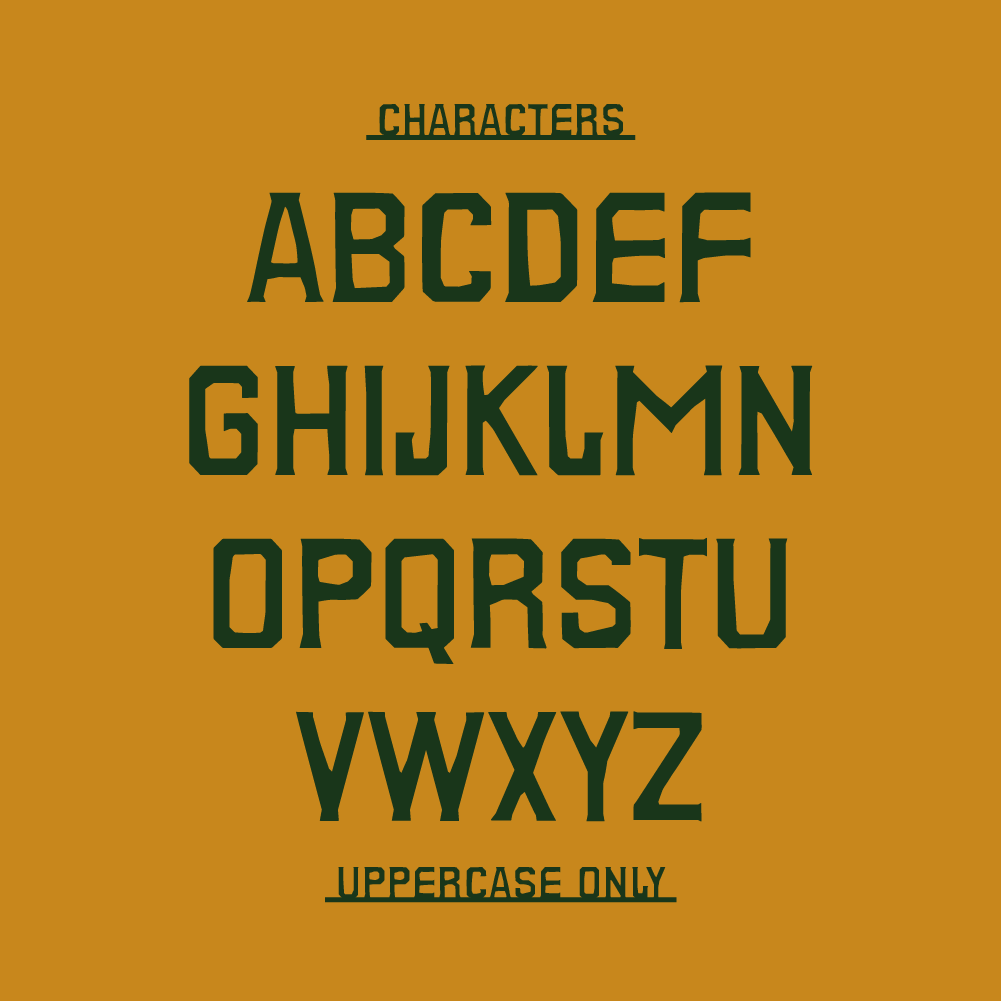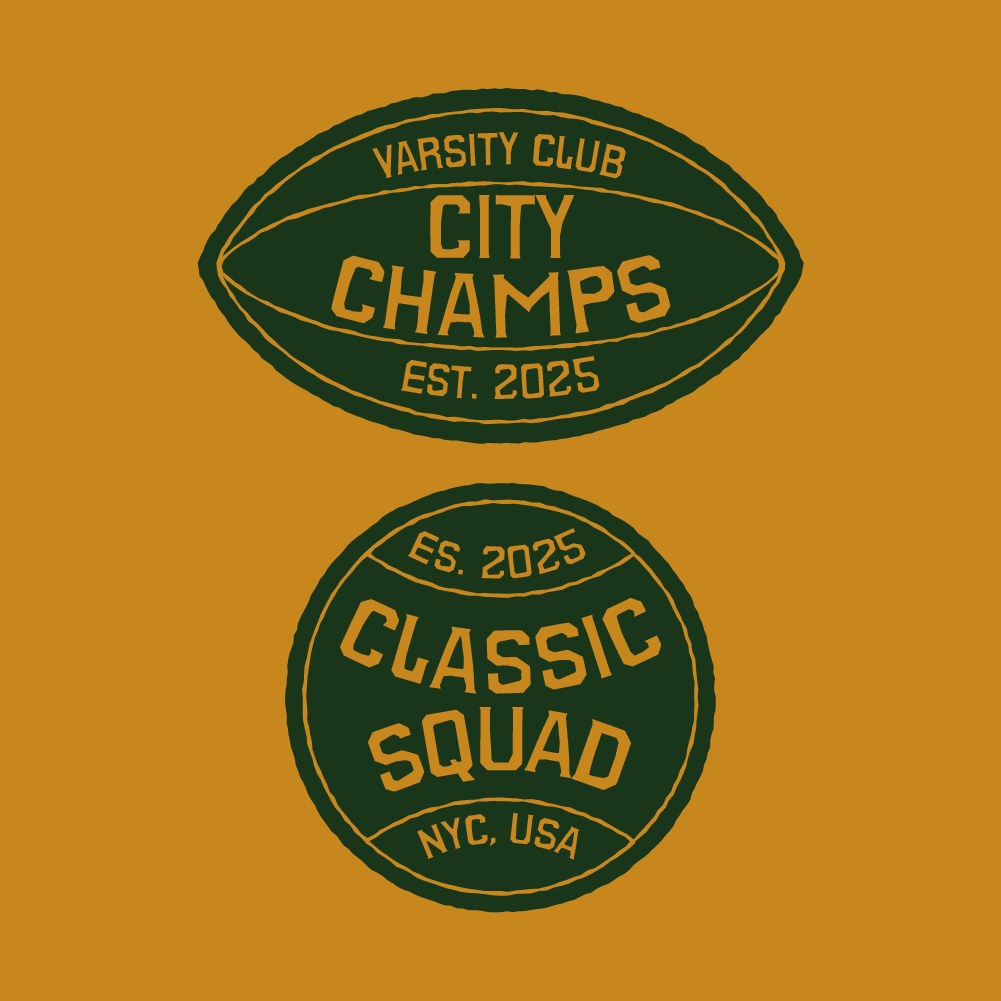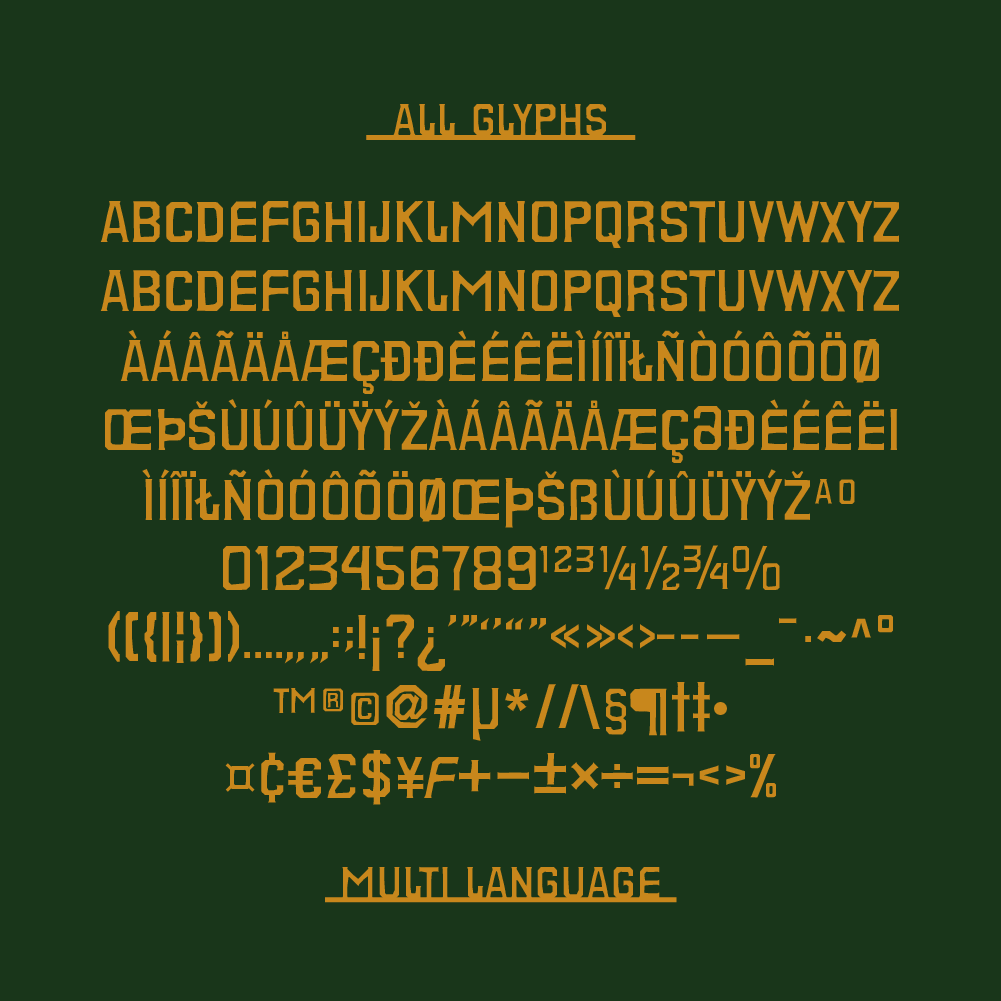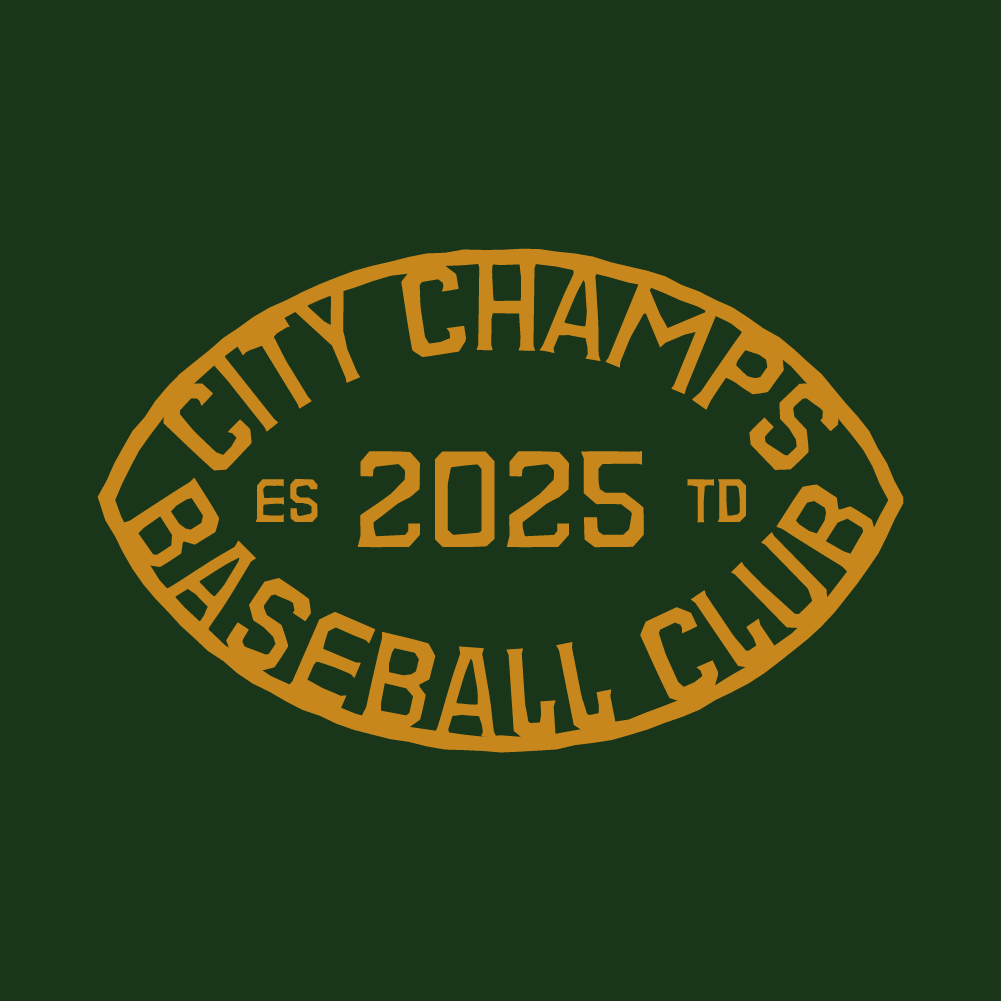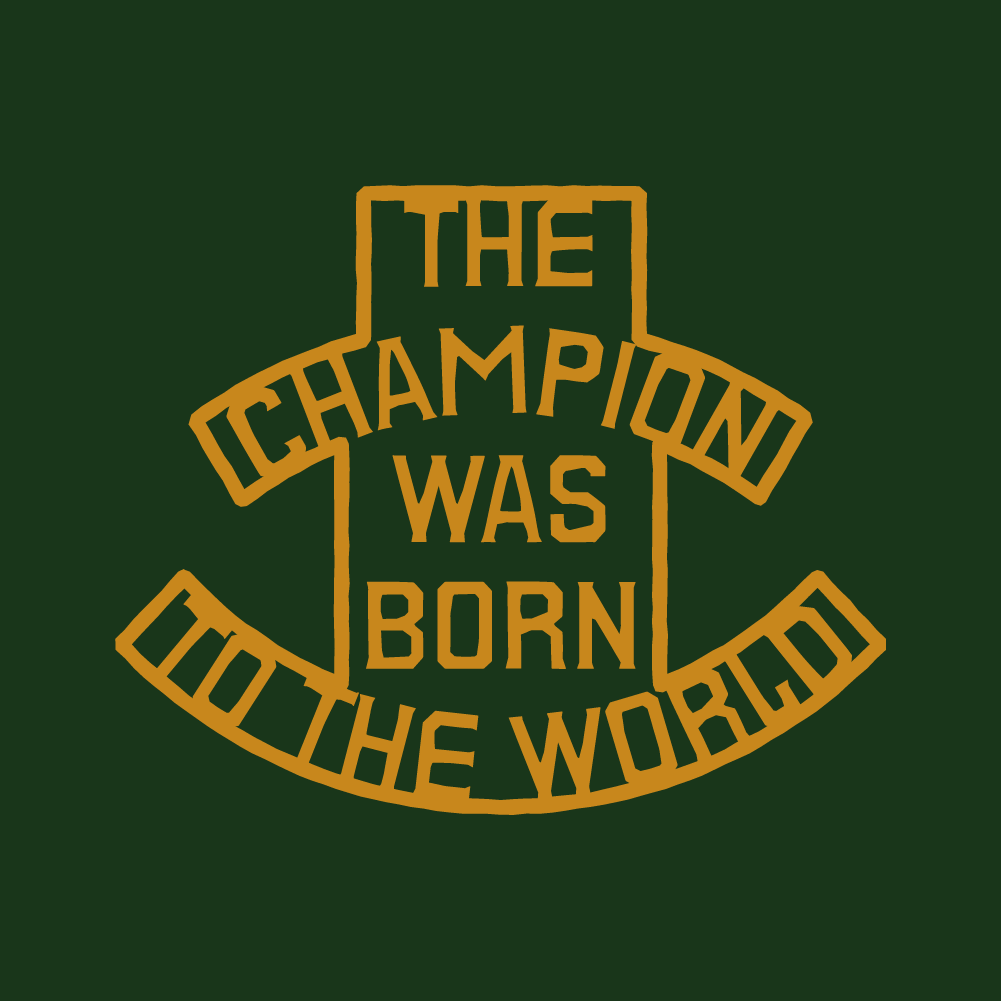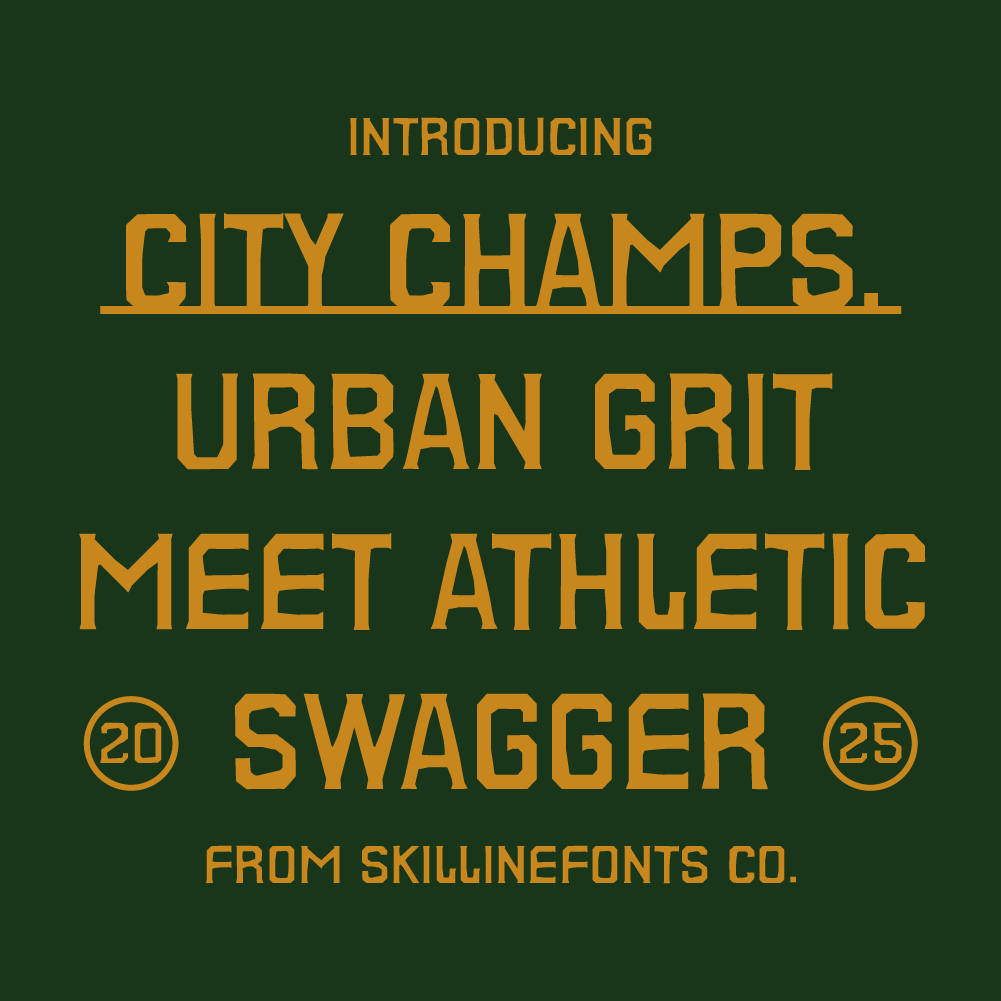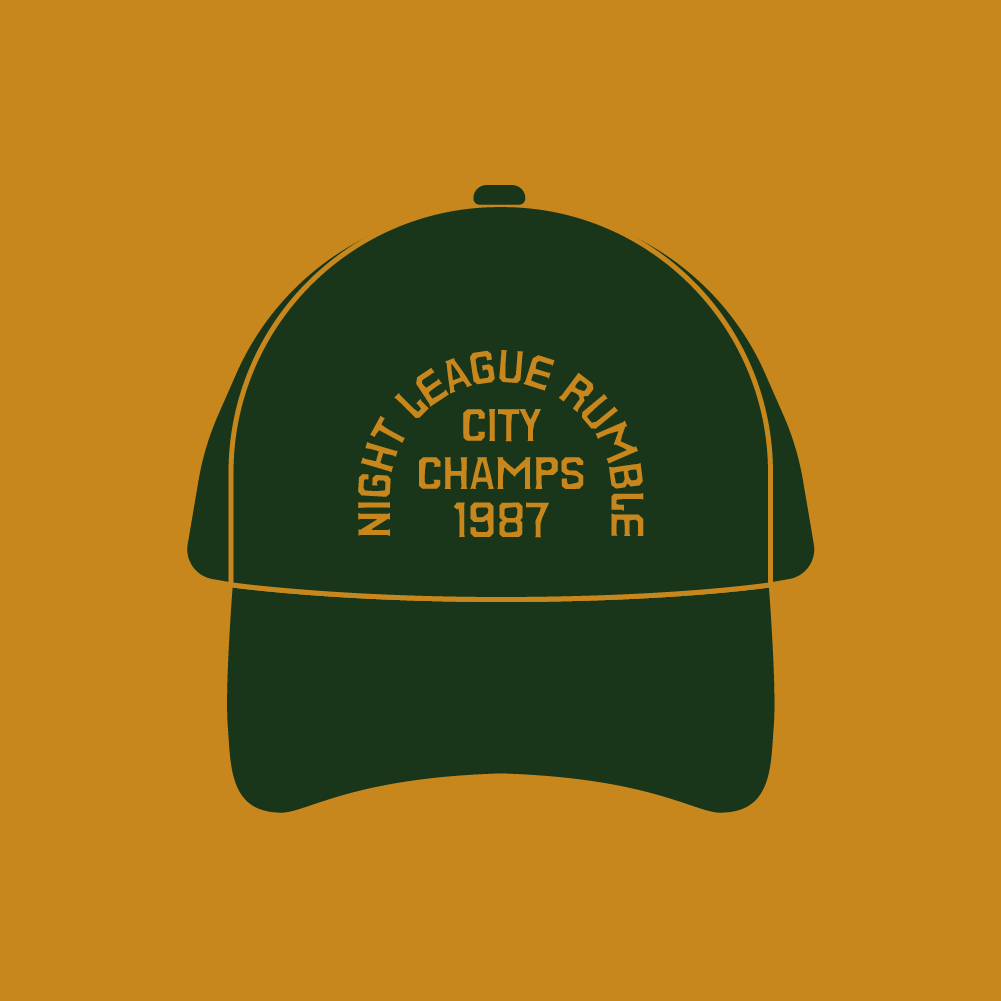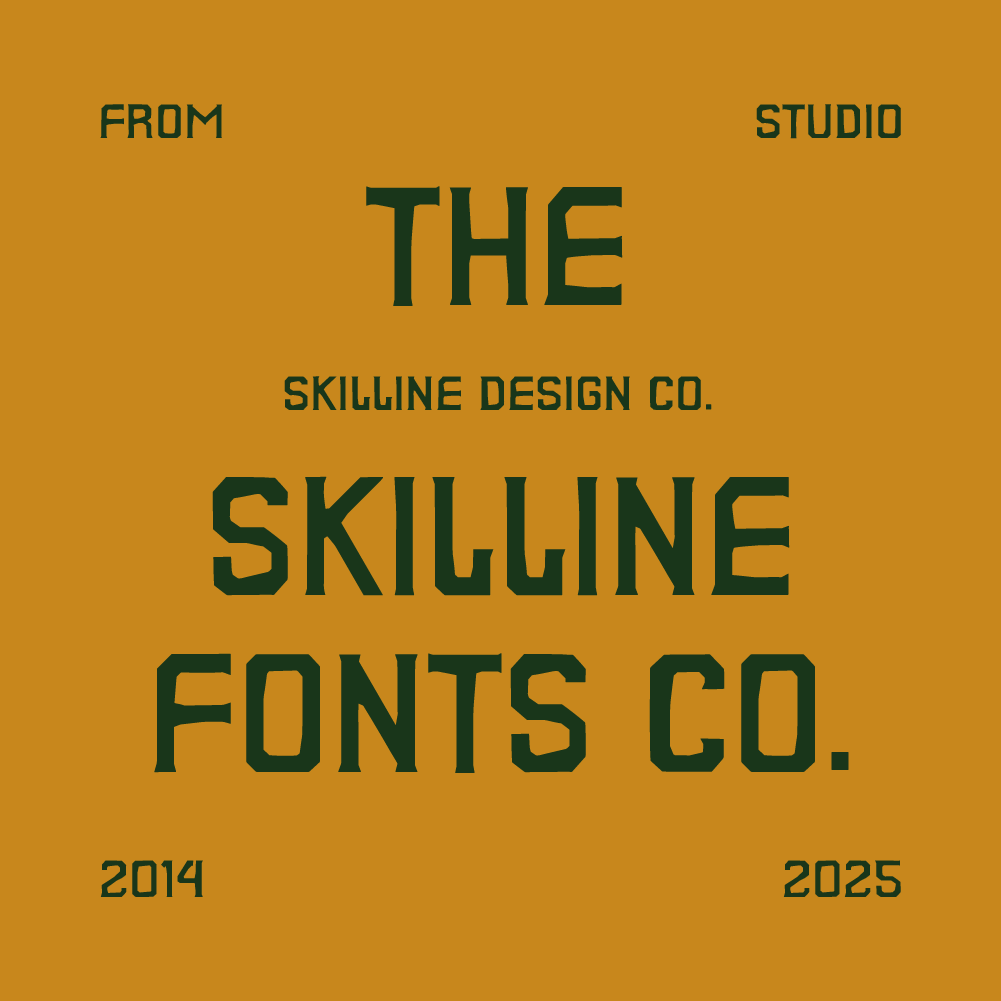
SFC City Champs
City Champs is a bold display typeface inspired by classic varsity lettering and vintage sports aesthetics. Featuring strong block letterforms and a retro athletic vibe, it delivers confidence, energy, and a competitive edge with modern versatility. Designed to stand out in all-caps compositions, City Champs offers rough sharp lines perfect for bold headlines and impactful visual statements.
Ideal Applications for SFC City Champs Typeface
• Sports team branding & logos
• Apparel, jerseys & merchandise
• Event posters & motivational graphics
• Editorial layouts & bold headlines
• Streetwear, signage & marketing materials
• All Caps Display Typeface
• Bold Varsity-Inspired Letterforms
• Basic Numerals & Punctuation
• Multi Language